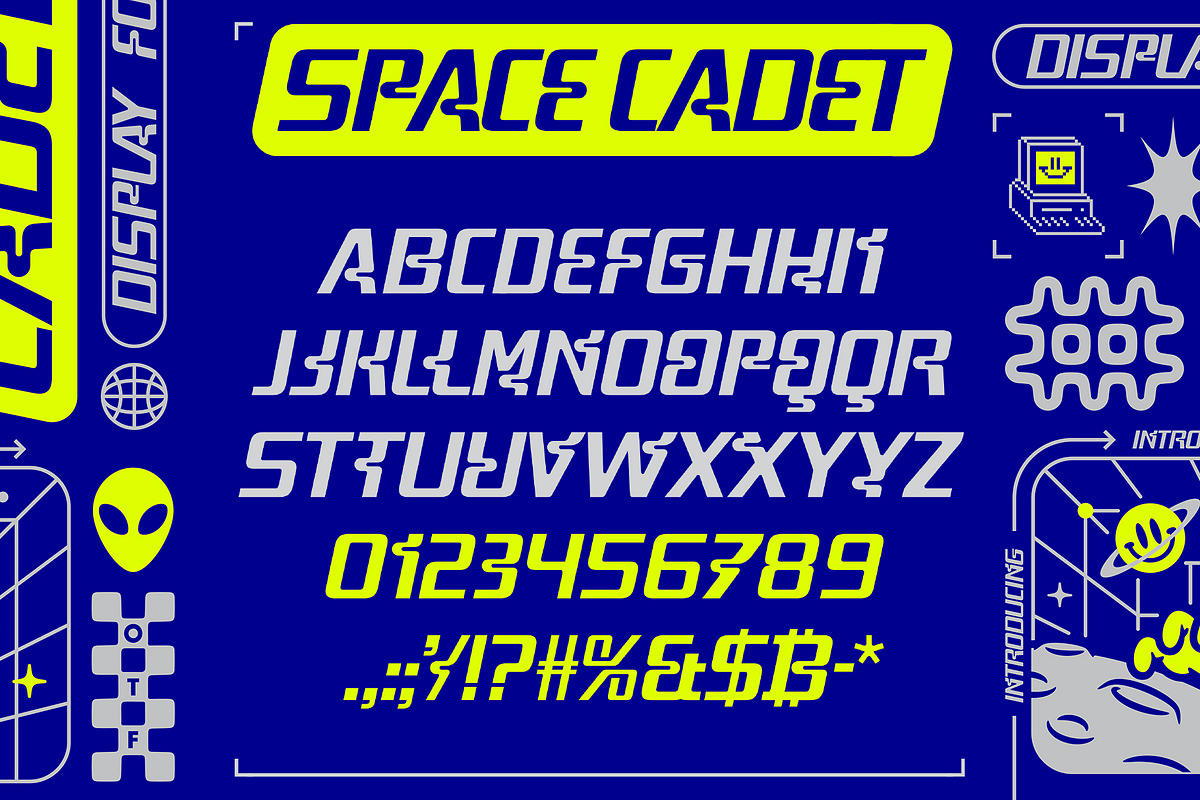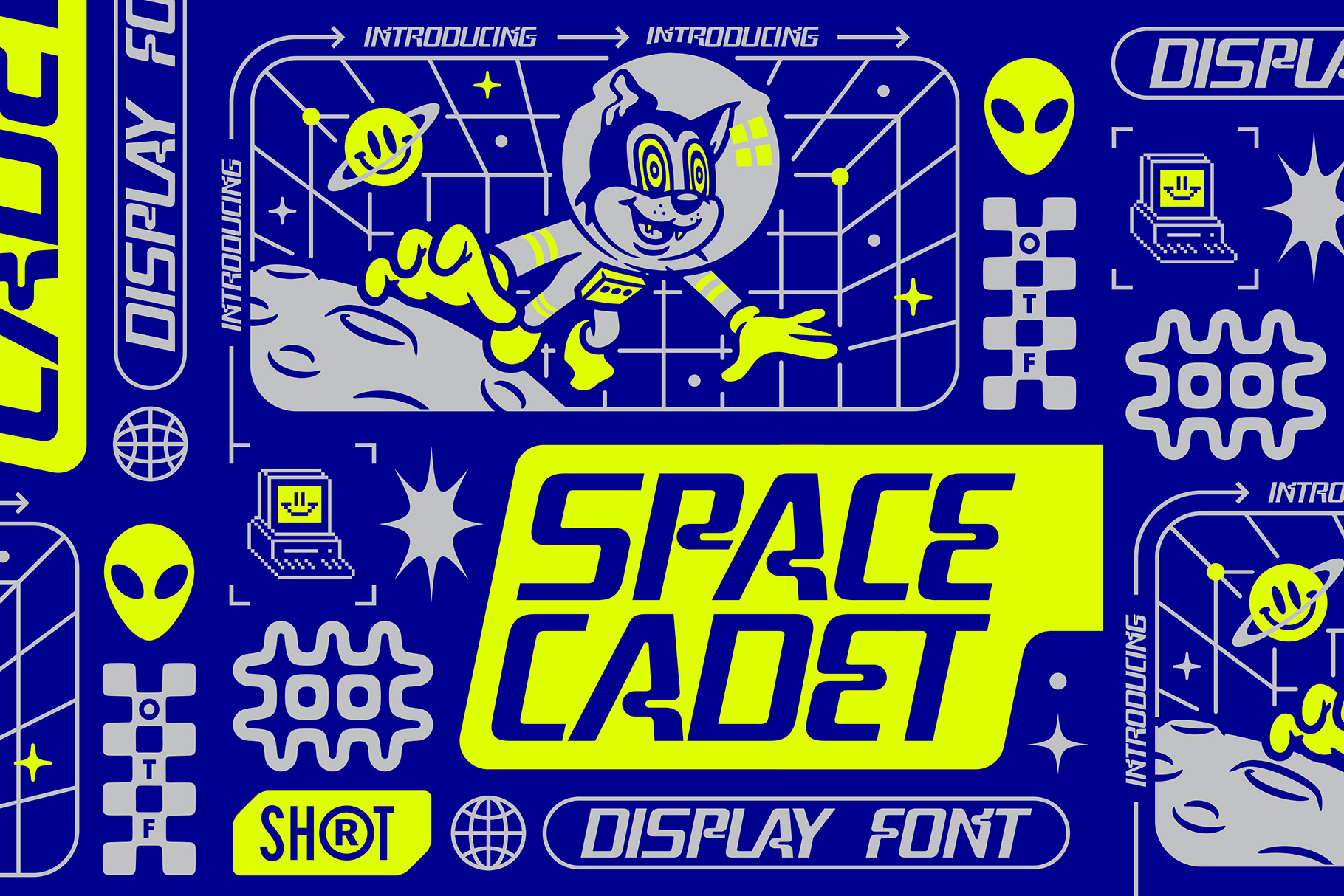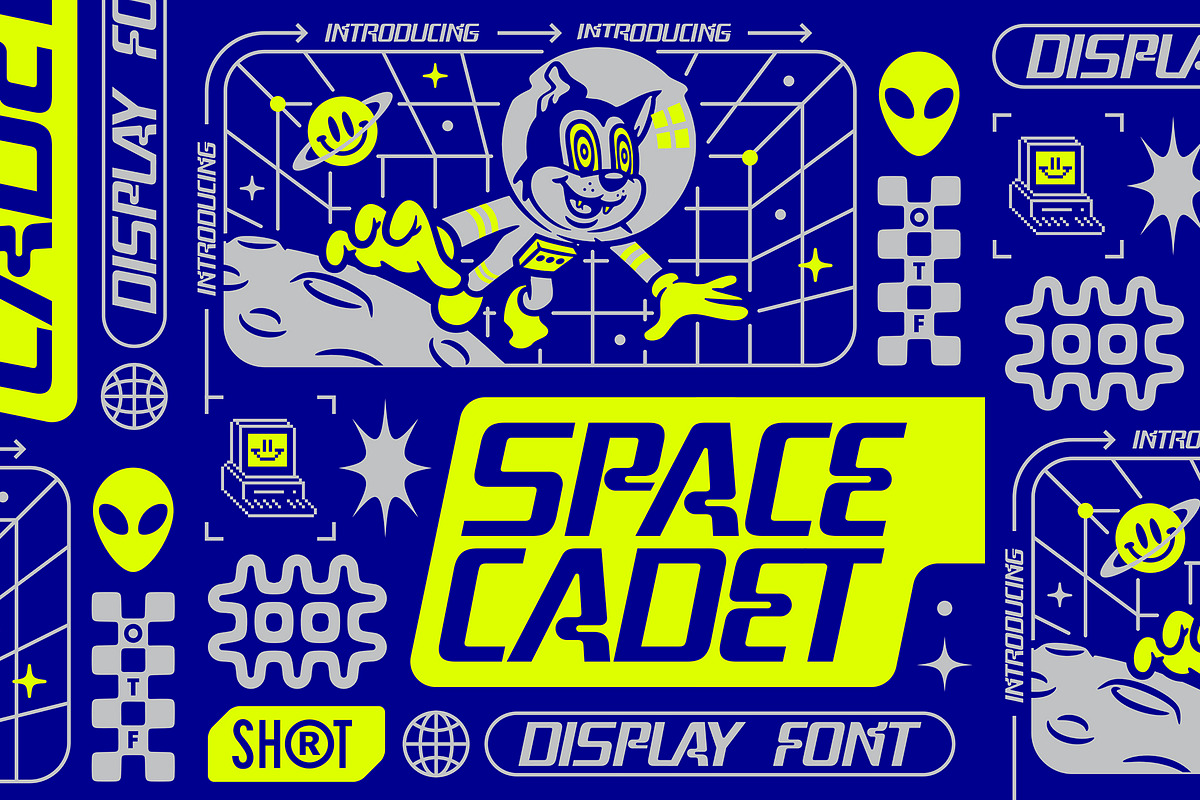
Space Cadet Font
Space Cadet is a glitchy font with a sci-fi aesthetic. Bring your artworks to a new dimension with these spacey letters!
This font comes with Uppercase Letters, Alternates, Numbers and some punctuation.
Get ready for liftoff!